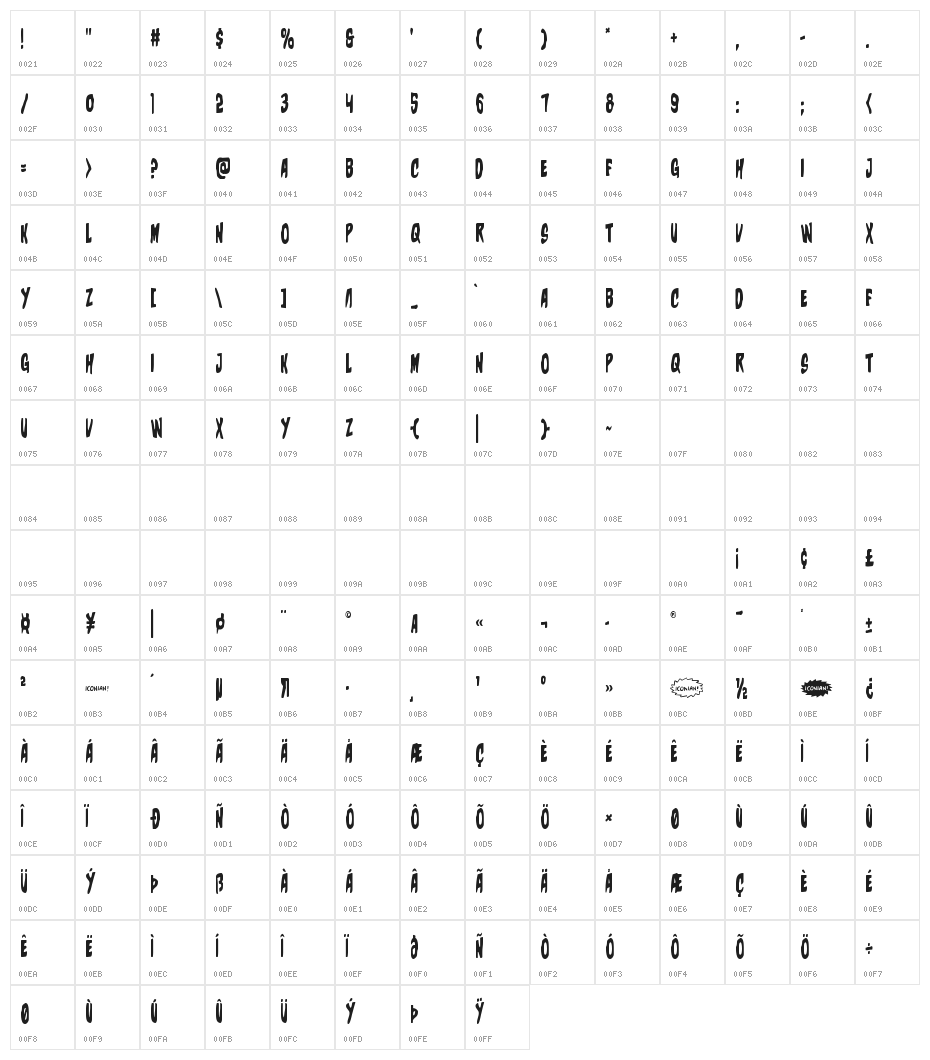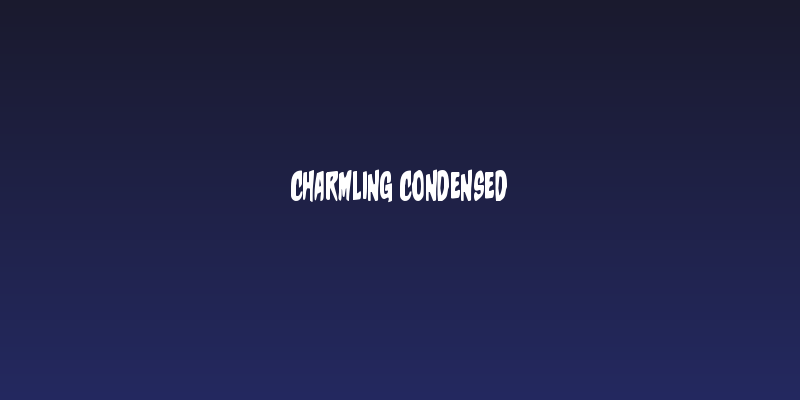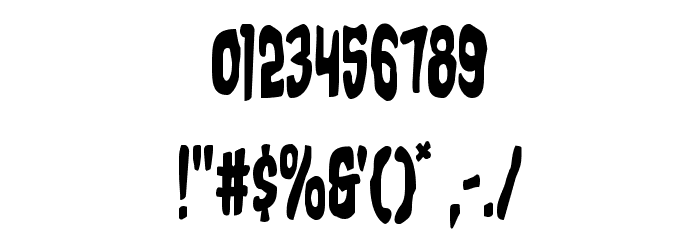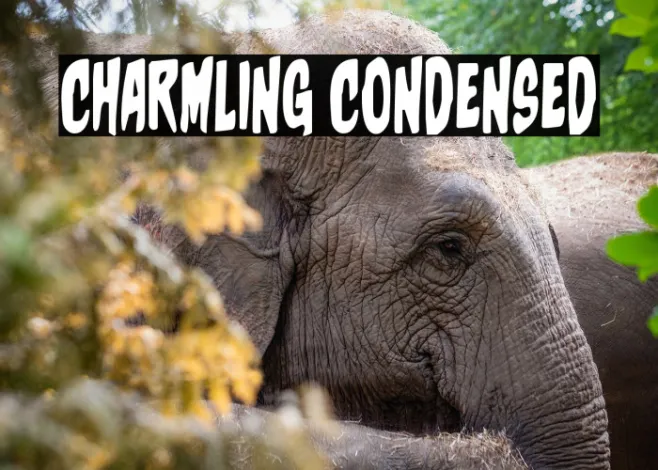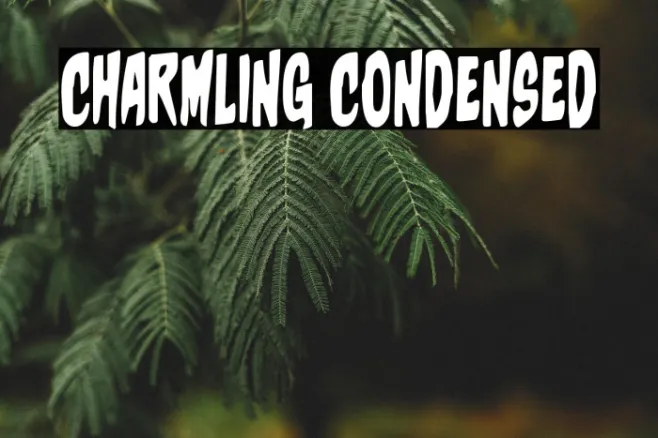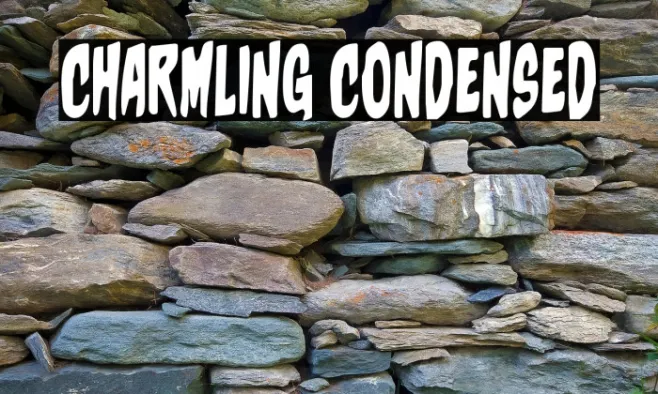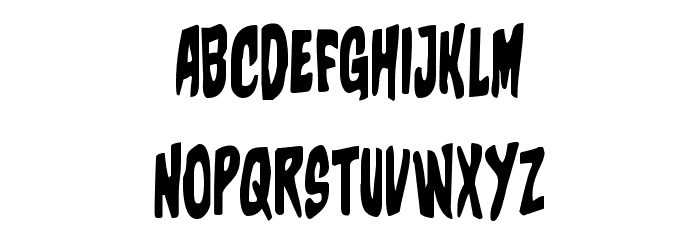
Charmling Condensed Font
Charmling Condensed Description
This font features a playful and bold style with a condensed width, giving it a unique and eye-catching appearance. The characters are slightly irregular, adding a whimsical and informal touch. The uppercase and lowercase letters maintain a consistent weight, contributing to a cohesive look. The numbers and special characters follow the same design principles, ensuring uniformity across all glyphs. The font's boldness and condensed nature make it ideal for projects that require a strong visual impact.
| Proposed Projects | Ideal for children's books, playful branding, posters, and creative event invitations. |